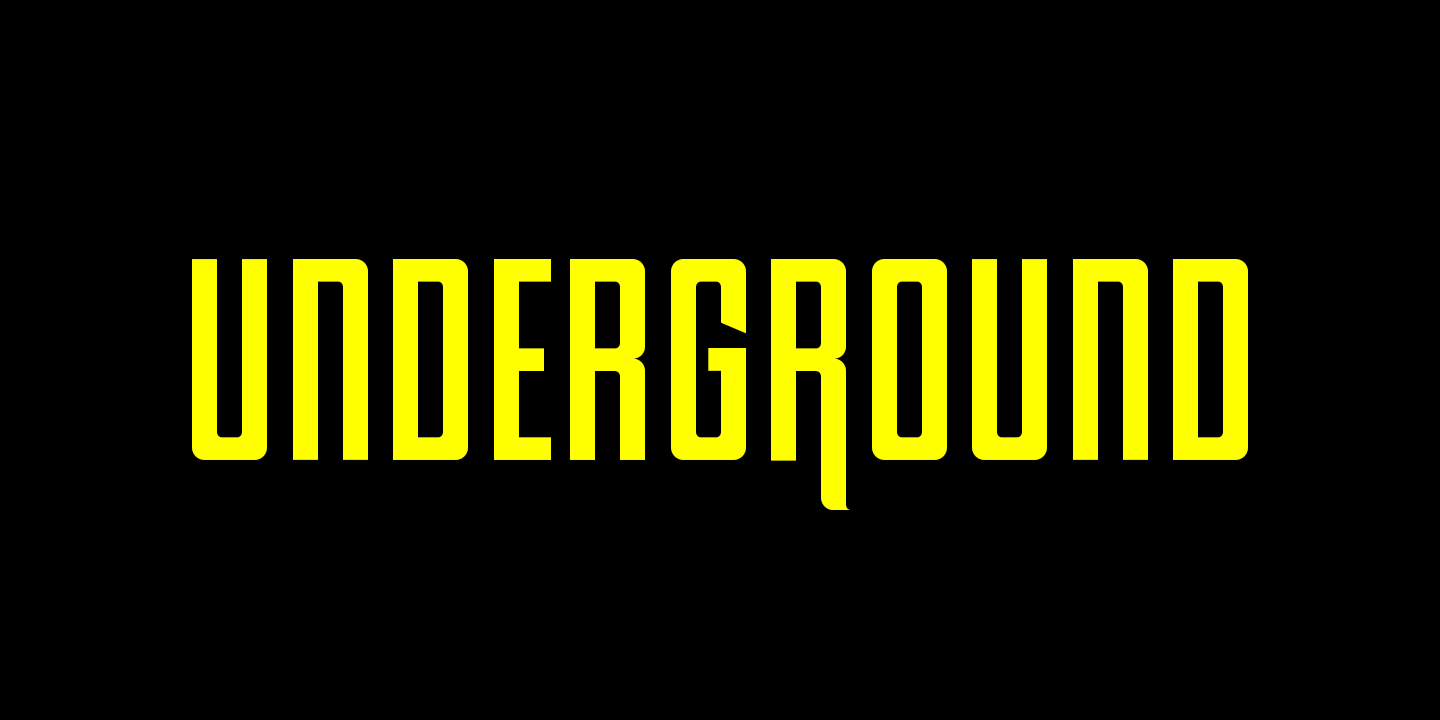
OTC Underground Font is perfect for alternative music venue branding, underground culture marketing, independent record label communications, subway system signage, counter-culture publications, and rebellious artistic campaigns. Its subversive character makes it ideal for underground music promoters, alternative art galleries, independent media companies, street culture brands, and any application requiring edgy typography that conveys underground authenticity, rebellious spirit, and the raw energy of alternative culture and independent creative movements.
OTC Underground Font is exciting because it embodies the rebellious energy and authentic grit of underground culture through boldly crafted letterforms that reflect the uncompromising independence and creative freedom that define alternative artistic movements. Its underground proportions and street-inspired details evoke the raw atmosphere of basement venues and the authentic passion of independent creators, making it perfect for brands celebrating artistic independence and cultural rebellion. The font's underground character transforms communications into expressions of creative resistance.
OTC Underground Font family includes rebelliously-designed weight variations typically featuring Regular, Medium, Bold, and Black options with underground styling that maintains alternative authenticity. The family often incorporates street symbols, underground elements, and counter-culture characters designed for independent creative applications, providing designers with comprehensive tools for creating authentic, underground culture-focused typographic compositions.
When selecting underground alternative typography solutions, OTC Underground Font Free Download represents an exceptional choice for independent and counter-culture projects. This rebellious typeface brings instant underground authenticity to any design, making it invaluable for alternative venues, independent artists, and counter-culture organizations celebrating creative independence. Whether you're developing underground music venue branding, creating independent media materials, or designing alternative culture campaigns, OTC Underground Font provides the rebellious energy and underground authenticity essential for expressing creative resistance in today's independent alternative culture marketplace.